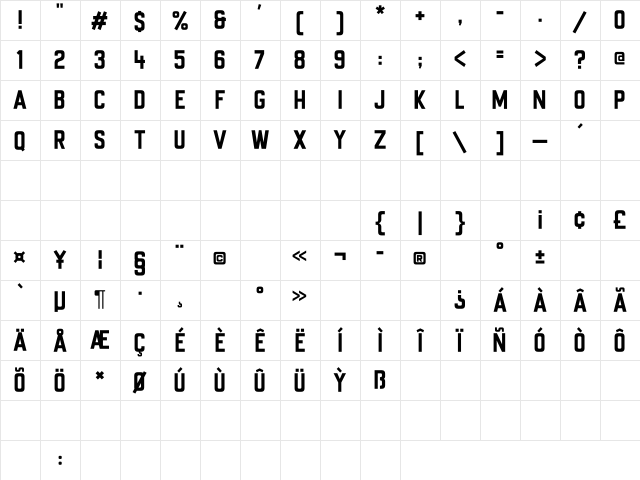
Universal Knowledge Regular
Design Context for Universal Knowledge Typeface
Universal Knowledge offers clean, dependable letterforms without strong stylistic allegiance, making it a practical choice for designers who need flexibility.
Pro Tip: Use Universal Knowledge in both headline and body roles to test its range before committing to a single application.